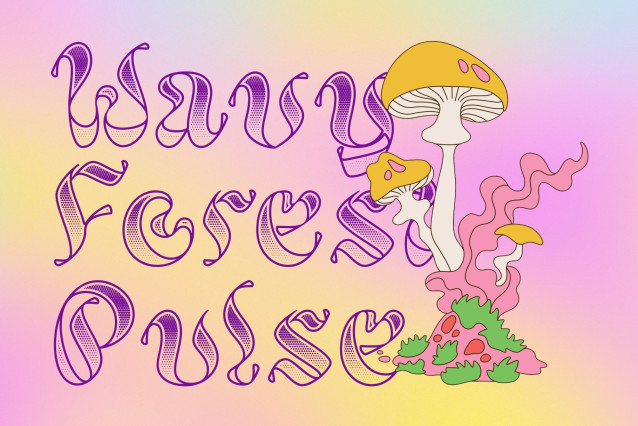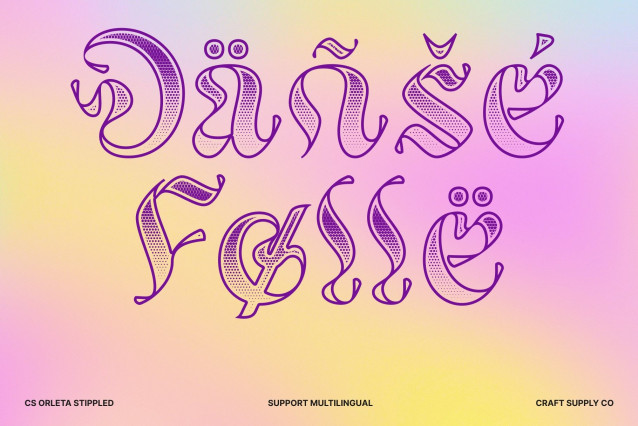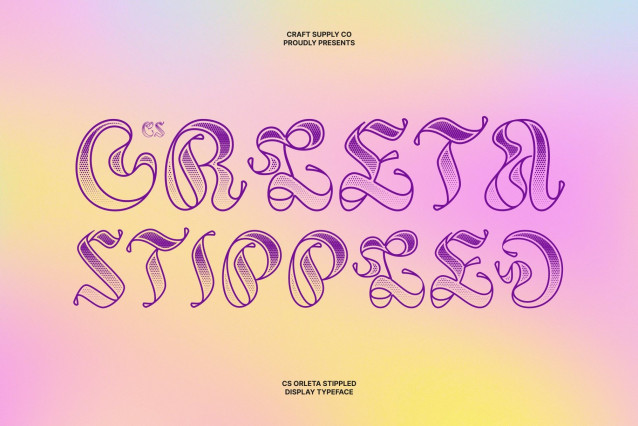
CS Orleta Stippled Font
CS Orleta Stippled – Trippy Font: A Psychedelic Flow of Creativity
Modern Trippy Liquid Display Font
This is a modern liquid display font featuring wavy, organically flowing letterforms enhanced with a stippled texture that adds depth and artistic character. Inspired by psychedelic visuals, surreal art, and fluid typography, this typeface embraces a free-spirited and unconventional approach perfect for designs that demand attention and emotional impact.
Funky and Vibrant Aesthetic
Its fluid, ever-changing structure radiates vibrant energy, with letterforms that appear to melt, shift, and morph. The stippled detail enriches the visual texture, giving the font a handcrafted and expressive feel reminiscent of psychedelic posters, experimental art, and futuristic dreamscapes. Whether used in retro or modern contexts, it delivers a playful yet surreal presence that instantly stands out.